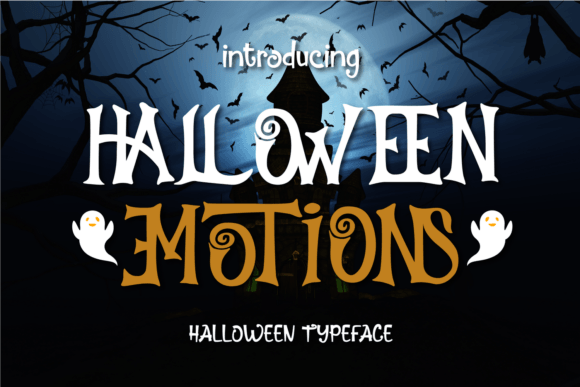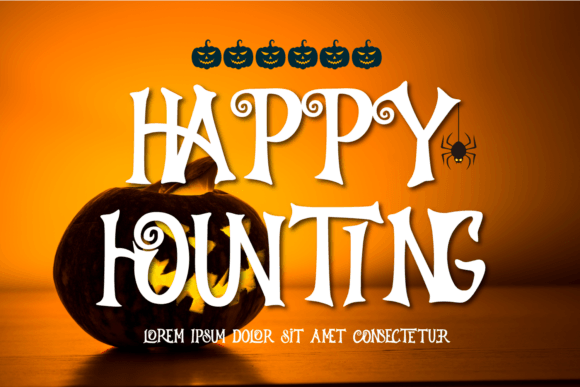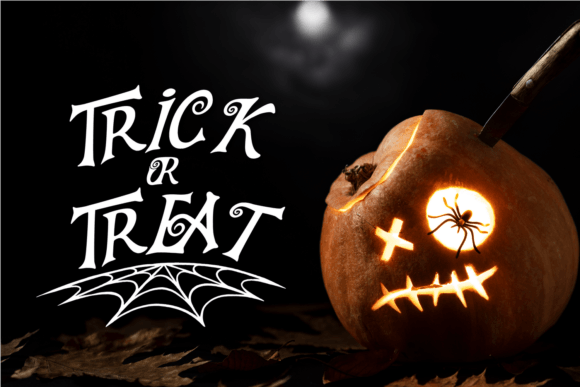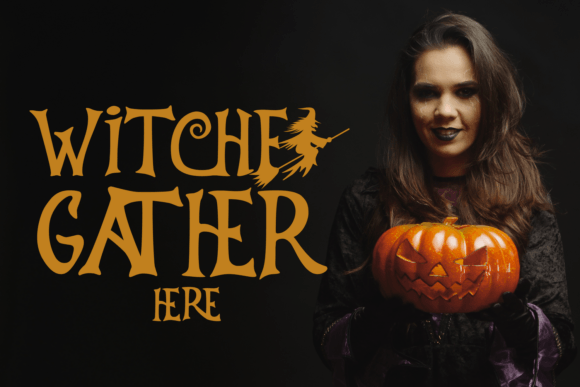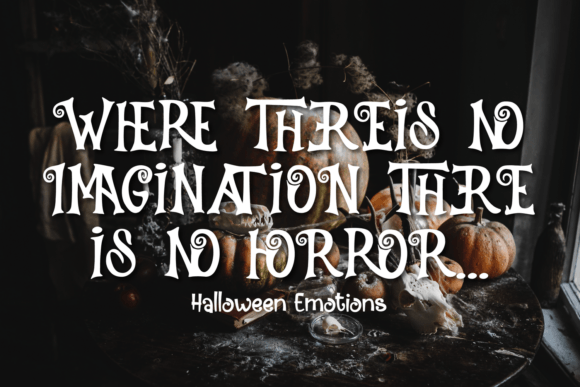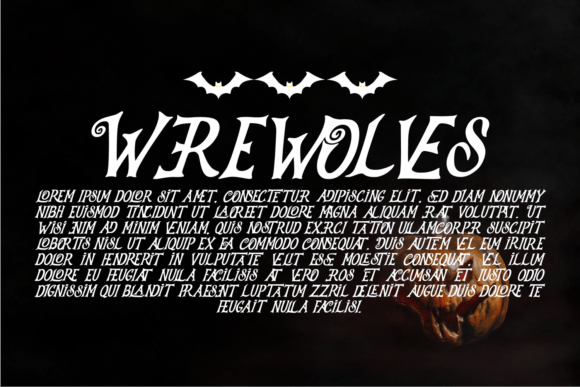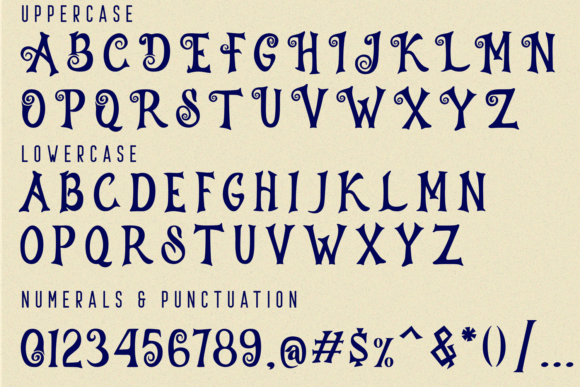
Spooky Vibes and Creative Delights: Unlock the Magic of Halloween Emotions Font
As the crisp autumn air sets in and the leaves begin to change colors, many of us can’t help but feel a thrill of excitement. The Halloween season is upon us, and with it comes a world of creative possibilities. Whether you’re a seasoned designer or a crafty enthusiast, there’s something undeniably alluring about conjuring up spooky scenes and eerie atmospheres. For those who crave a font that captures the essence of this bewitching time of year, look no further than the enchanting Halloween Emotions Font.
This spellbinding display font is the perfect tool for designers looking to add a touch of mystique and fantasy to their projects. With its unique, twig-inspired design, Halloween Emotions Font is sure to transport your audience to a world of magic and mayhem. Whether you’re crafting a haunting Halloween poster or designing a spooky social media campaign, this font is the key to unlocking your creative potential.
- Unique Characteristics: This font features a unique blend of spooky and emotive characters, perfect for Halloween-themed designs and projects.
Halloween Emotions Font Review
I recently had the chance to work with the “Halloween Emotions Font” and I’m excited to share my honest thoughts on this unique font.
- The font is incredibly expressive, capturing the essence of various Halloween emotions with its quirky and playful characters.
- The font is highly customizable, allowing users to adjust the size, color, and spacing to suit their needs.
- The font is well-suited for a wide range of Halloween-themed projects, from invitations to social media graphics.
- The font may not be suitable for professional or formal projects due to its playful and whimsical nature.
- The font may not be easily readable at very small sizes, so it’s best to use it in larger font sizes or with clear headings.
- The font’s expressiveness may make it difficult to use in situations where a more subtle tone is desired.
Overall, I think the “Halloween Emotions Font” is a great choice for anyone looking to add a playful touch to their Halloween projects. While it may not be suitable for all types of projects, it’s a fun and creative option that can really bring your designs to life.
Use the Halloween Emotions font for creating spooky and festive designs, such as:
Halloween invitations, posters, and party decorations.
Spooky-themed social media graphics and ads.
Ghostly and eerie typography for horror movie posters and promotional materials.